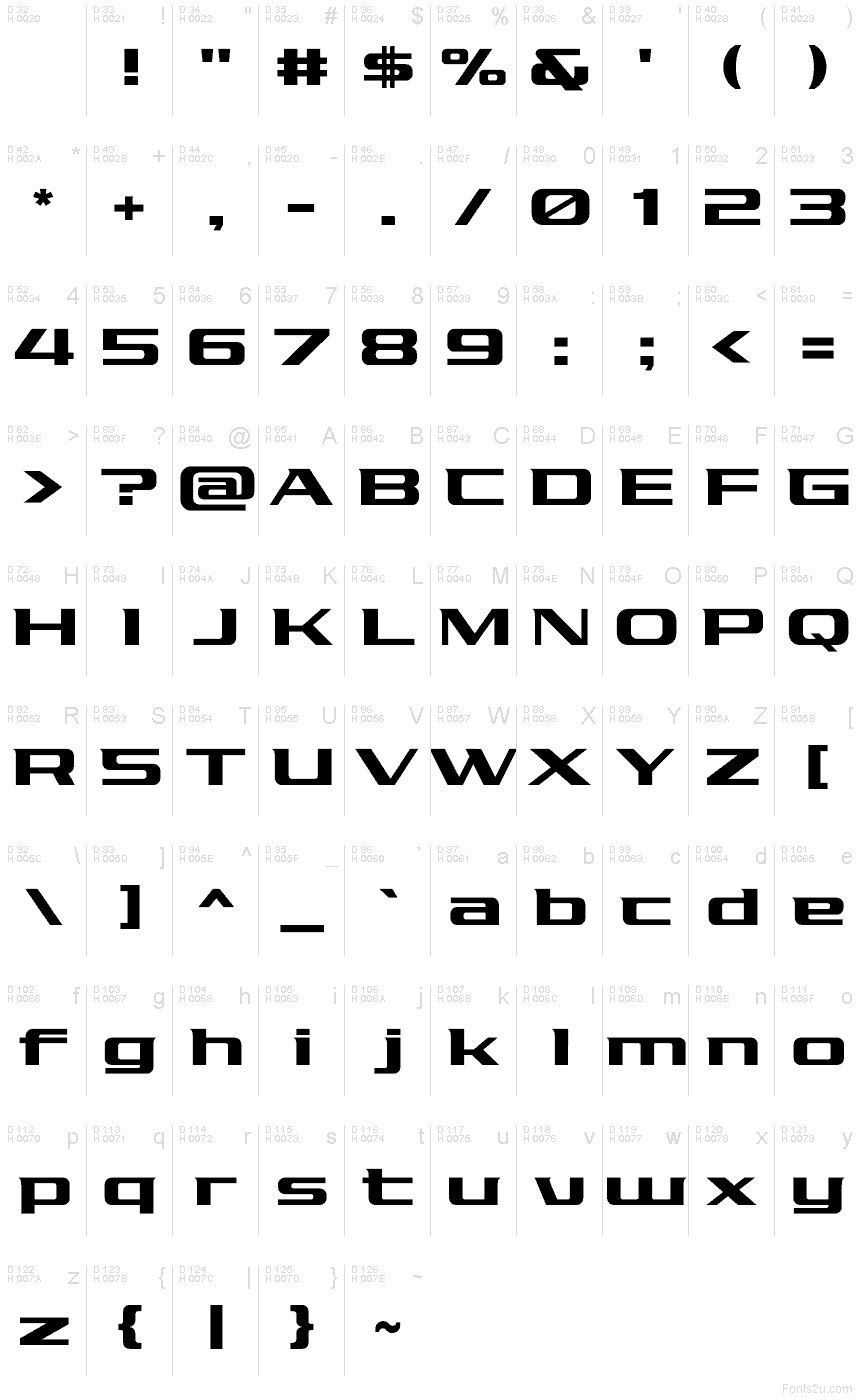
Pro Racing
Pro Racing font from Sronstudio is a modern techno bold display font with an expanded width. A careful selection of shapes brought this unique and professional display whose legacy is aiming to push your visual design forward. It’s a sleek typeface, slightly geometric and suitable for users who wish to obtain the perfect impactful design.
Use this free display font for sale posters, branding projects, headlines, book covers brochures, music album covers, website headers, banners or body text; the list doesn’t stop there. Don’t waste any more time even if you’re enough waiting you may not read that last comma.